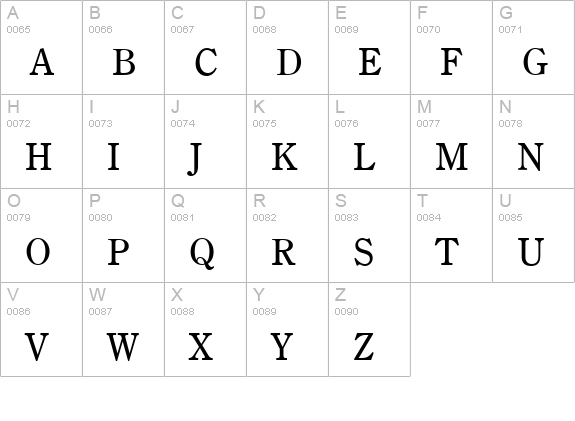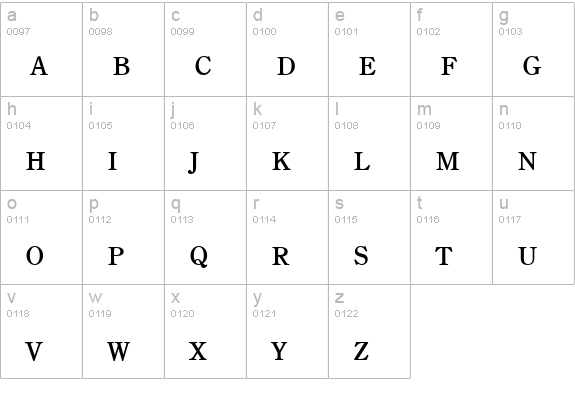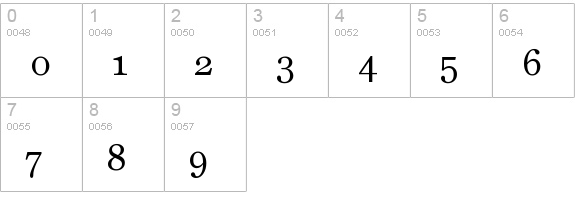
Century-Old-Style-Caps-Regular Font Details
Century-Old-Style-Caps-Regular is the standard, neutral variant in the Century typeface family \xE2\x80\x94 well suited to general body text, paragraphs, and standard typographic work.
Century-Old-Style-Caps-Regular font is a timeless and elegant typeface that exudes sophistication and class. With its intricate details and classic design, this font pays homage to the traditional styles of typography from a bygone era. Perfect for adding a touch of vintage charm to your projects, Century-Old-Style-Caps-Regular font is versatile and can be used for a variety of purposes, from invitations and posters to branding and packaging. Best of all, Century-Old-Style-Caps-Regular font is available for free download at FontsMarket.com. Whether you're a designer looking to add a touch of nostalgia to your work or a creative looking for a unique font for your next project, this font is the perfect choice. Download Century-Old-Style-Caps-Regular today and add a touch of old-world charm to your designs.